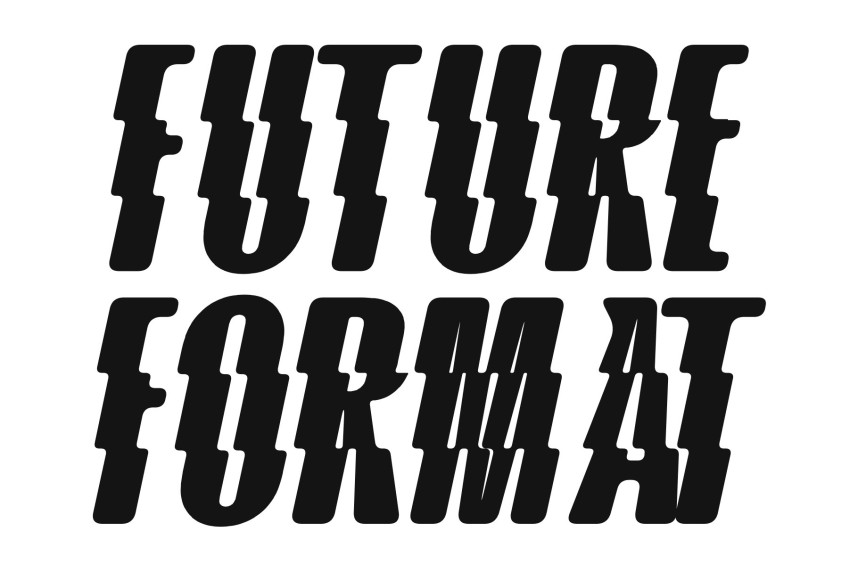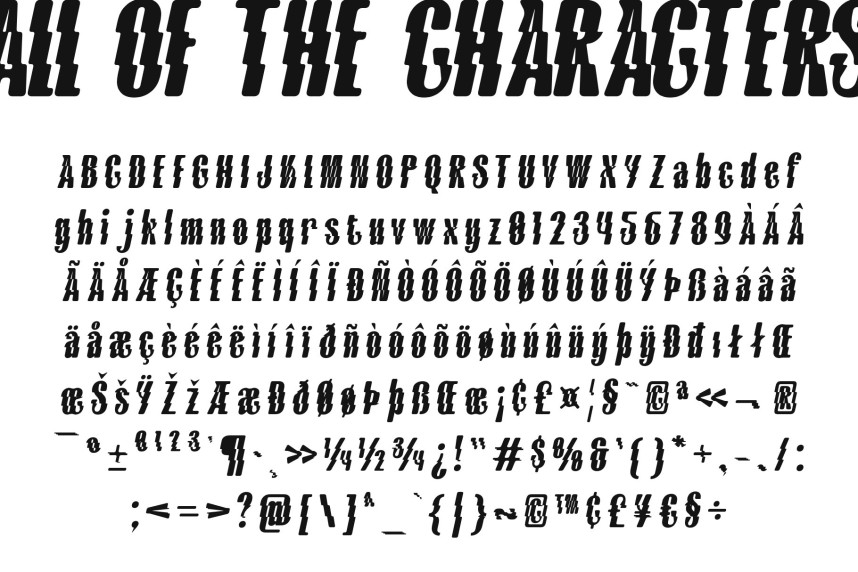
CS Bridger Rippled Font
CS Bridger Rippled Font – Modern Sans Serif Font: Where Bold Strength Meets Fluid Wave Energy
Strong and Assertive Contemporary Design
This is a modern sans serif font distinguished by its bold and condensed forms, creating a visually striking and assertive appearance. Its strong structure, clean lines, and compact proportions maximize impact while maintaining clarity, making it ideal for designs that need to command attention. The font’s confident personality delivers a modern aesthetic filled with energy and presence.